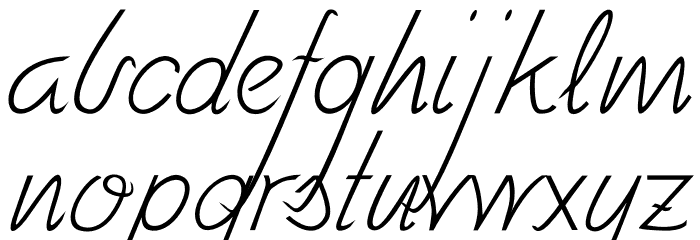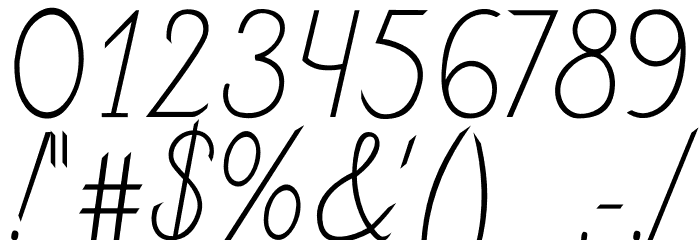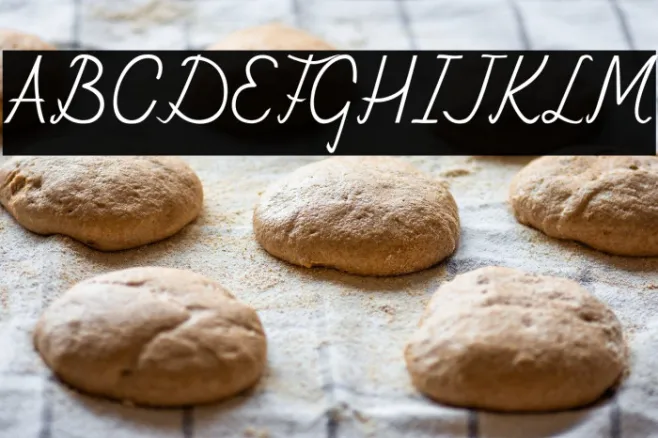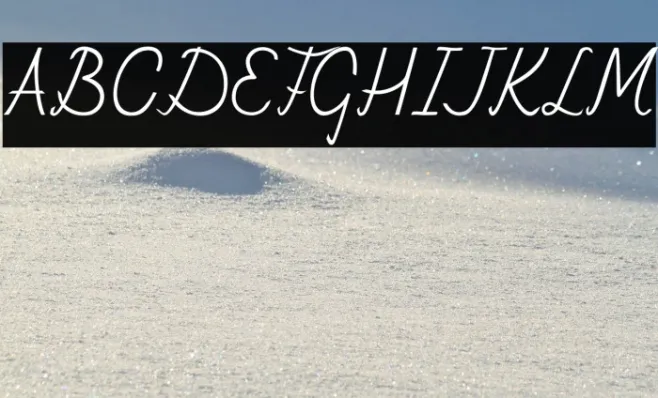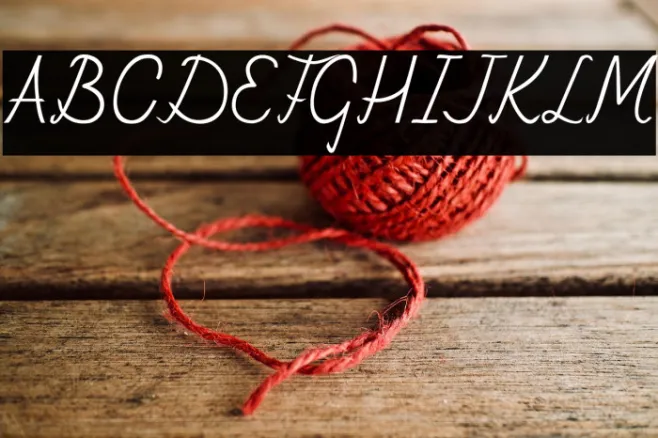
Fely Font
This font features a flowing, cursive style with elegant, elongated strokes that give it a sophisticated and graceful appearance. The characters are connected, mimicking the fluidity of handwriting, which adds a personal touch. The uppercase letters are slightly more formal, while the lowercase letters maintain a consistent slant, enhancing the script-like quality. The numerals are clear and maintain the same cursive style, ensuring readability. Special characters are seamlessly integrated, maintaining the overall aesthetic. This font is ideal for projects that require a touch of elegance and personalization.
A cursive, elegant font with flowing, connected characters.
- Font: Fely
- Proposed Projects: Ideal for wedding invitations, greeting cards, personal branding, and elegant logo designs.
- Category: Script
- Overall Style: Elegant
- Use Case: Logos, Invitations, Personal Branding